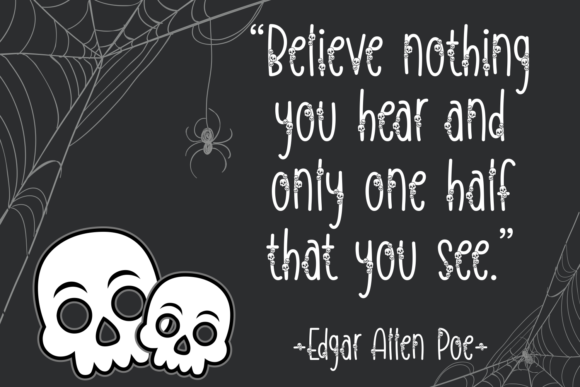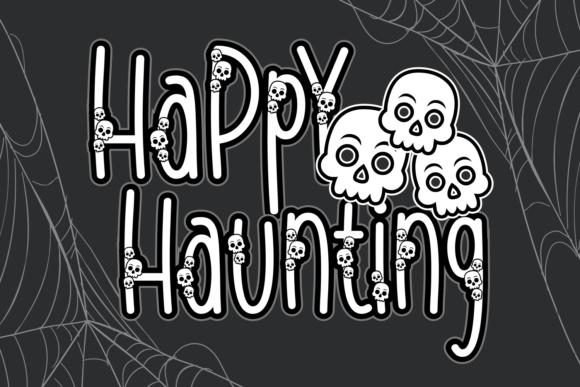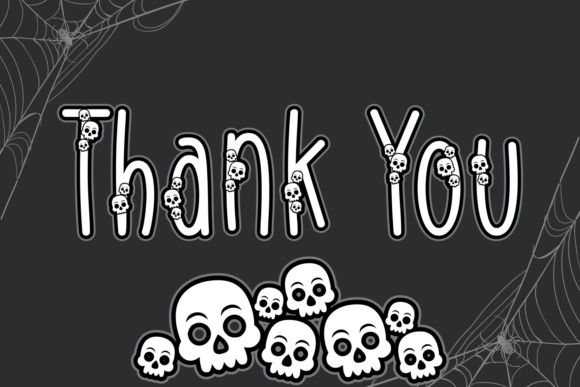
Introduction to Skulleton Font
Skulleton is a spooky decorative font.
Get inspired by its incredibly youthful feel Masterfully designed to become a true favorite, this font has the potential to bring each of your creative ideas to the highest level.